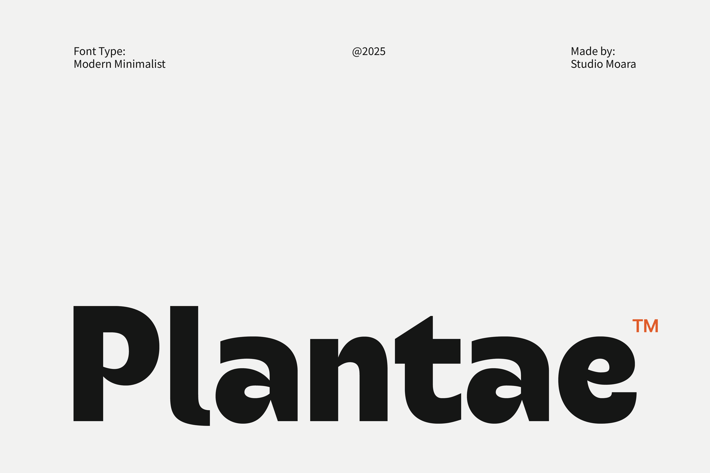
Plantae - Modern Minimalist Font
Plantae is a modern minimalist font designed for elegance and versatility. Its clean, sleek letterforms make it perfect for branding, editorial designs, logos, and packaging. With a contemporary aesthetic, Plantae blends simplicity with sophistication, ensuring readability and style. Ideal for fashion, lifestyle, and luxury projects, this font adds a refined touch to any design. Whether used for headlines or body text, Plantae offers a balanced and timeless appeal, making it a must-have for designers.